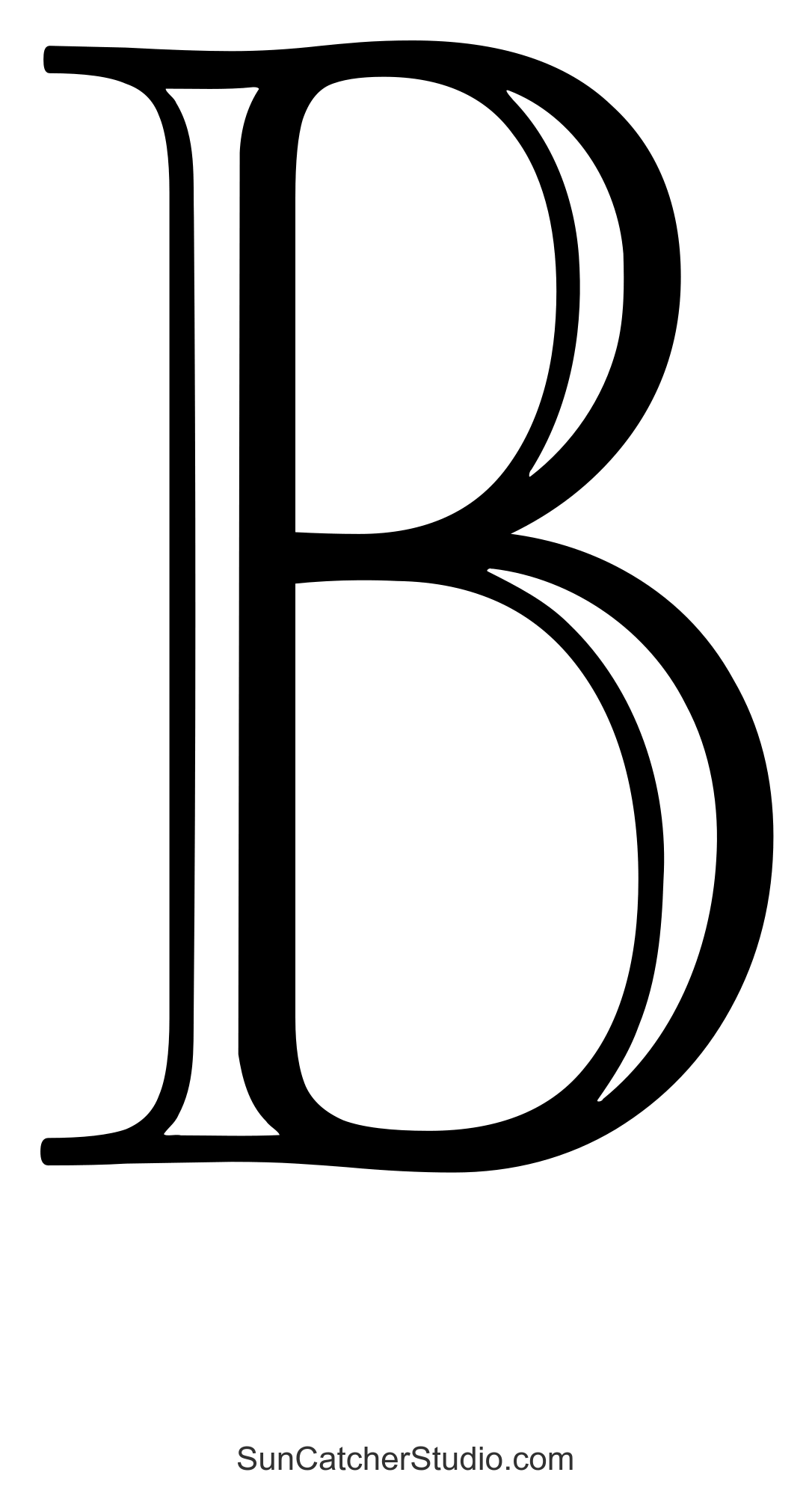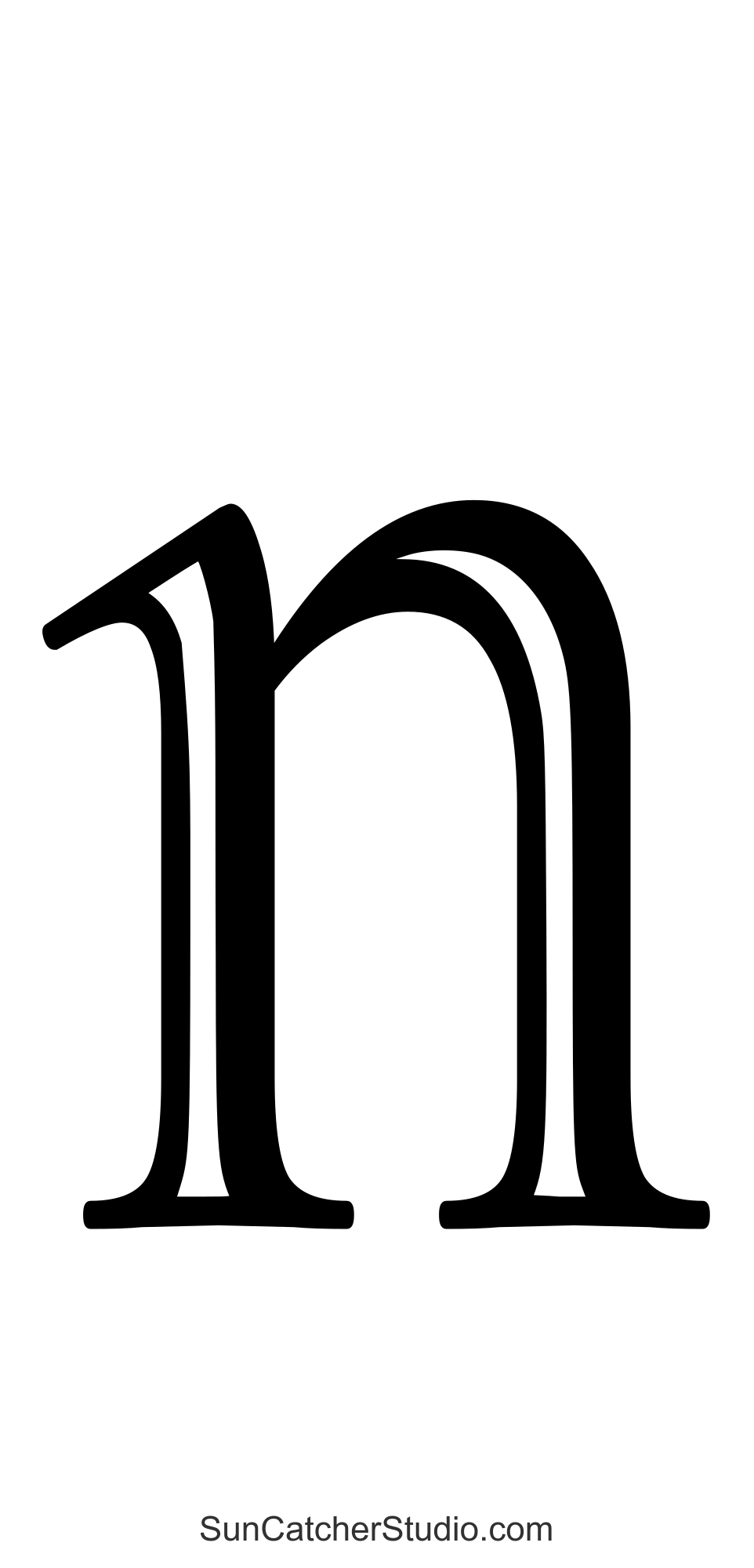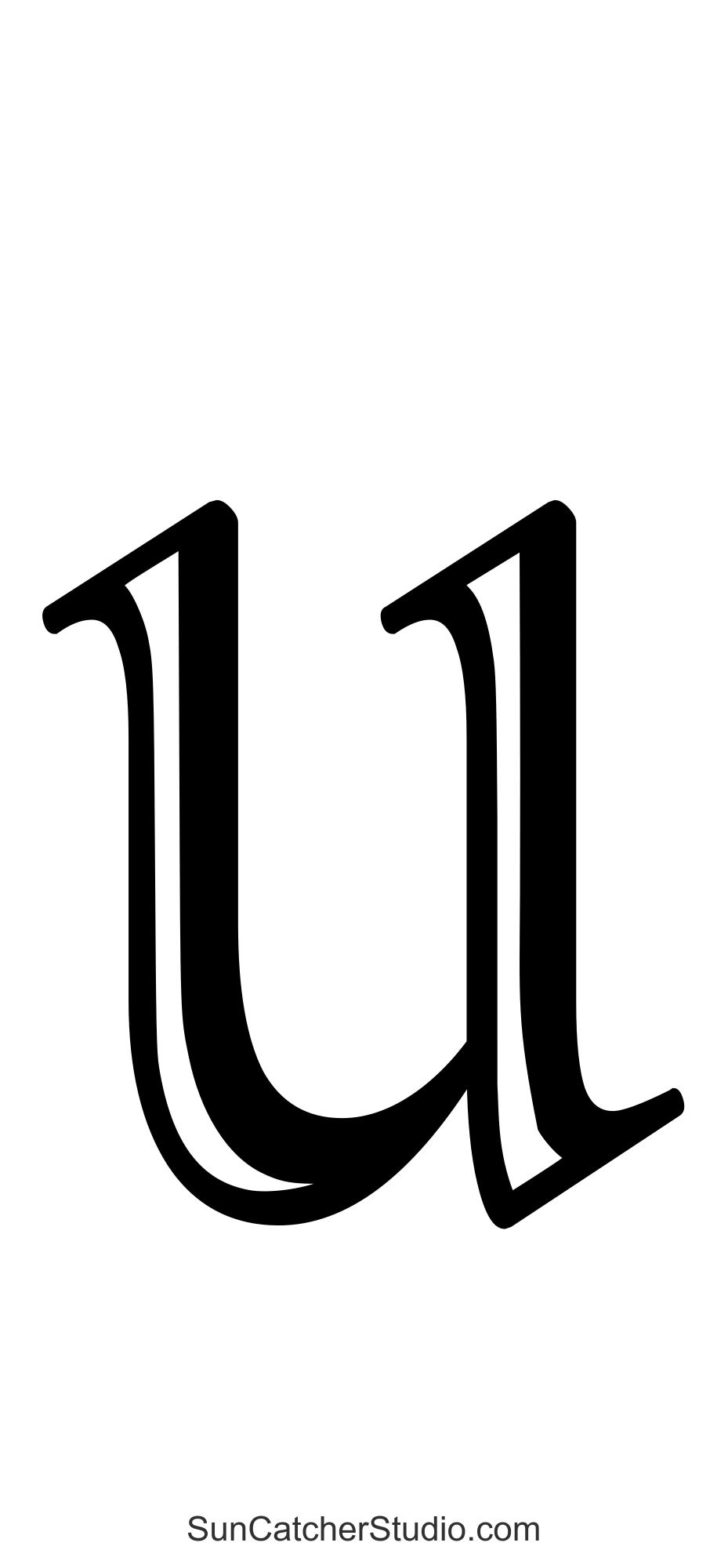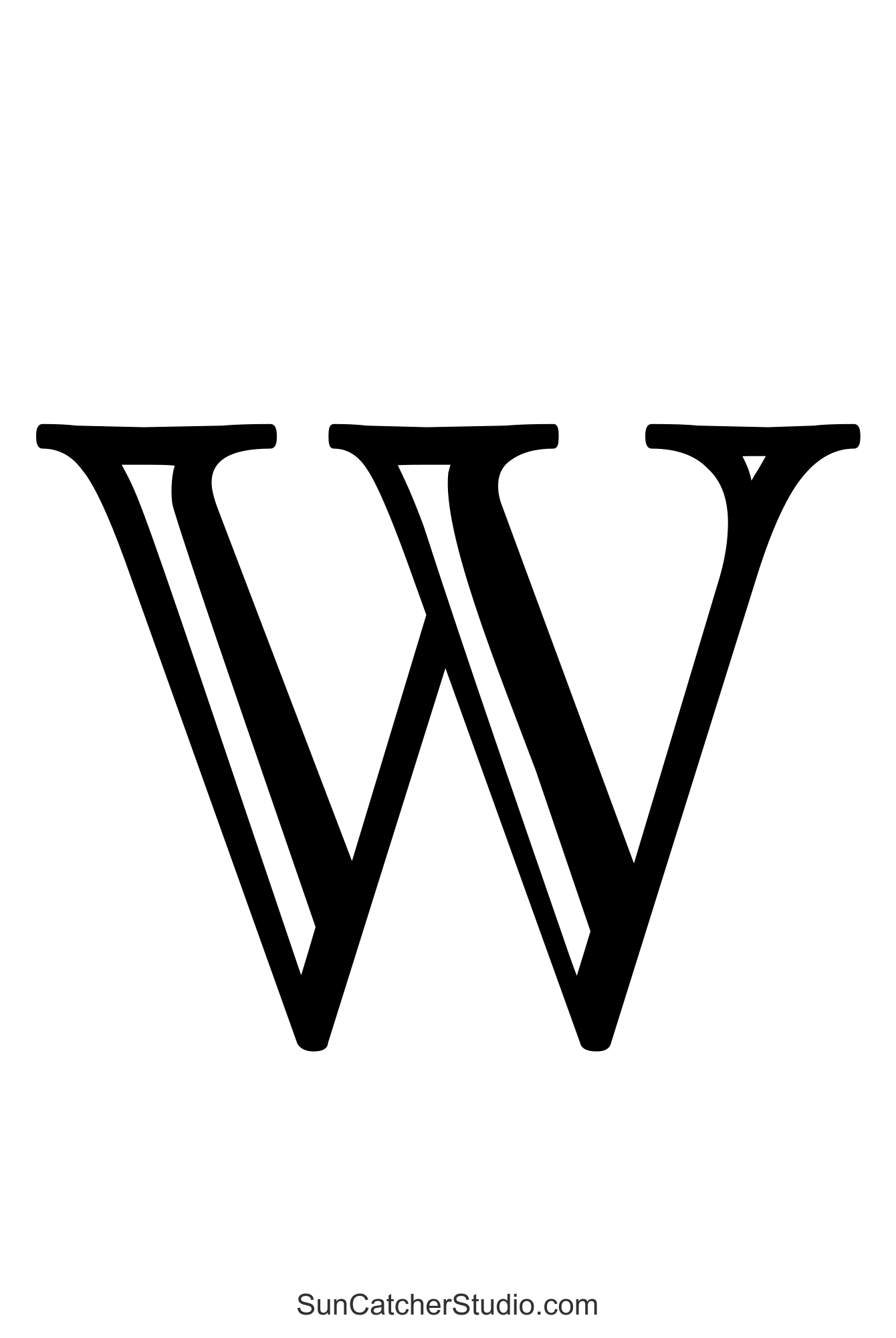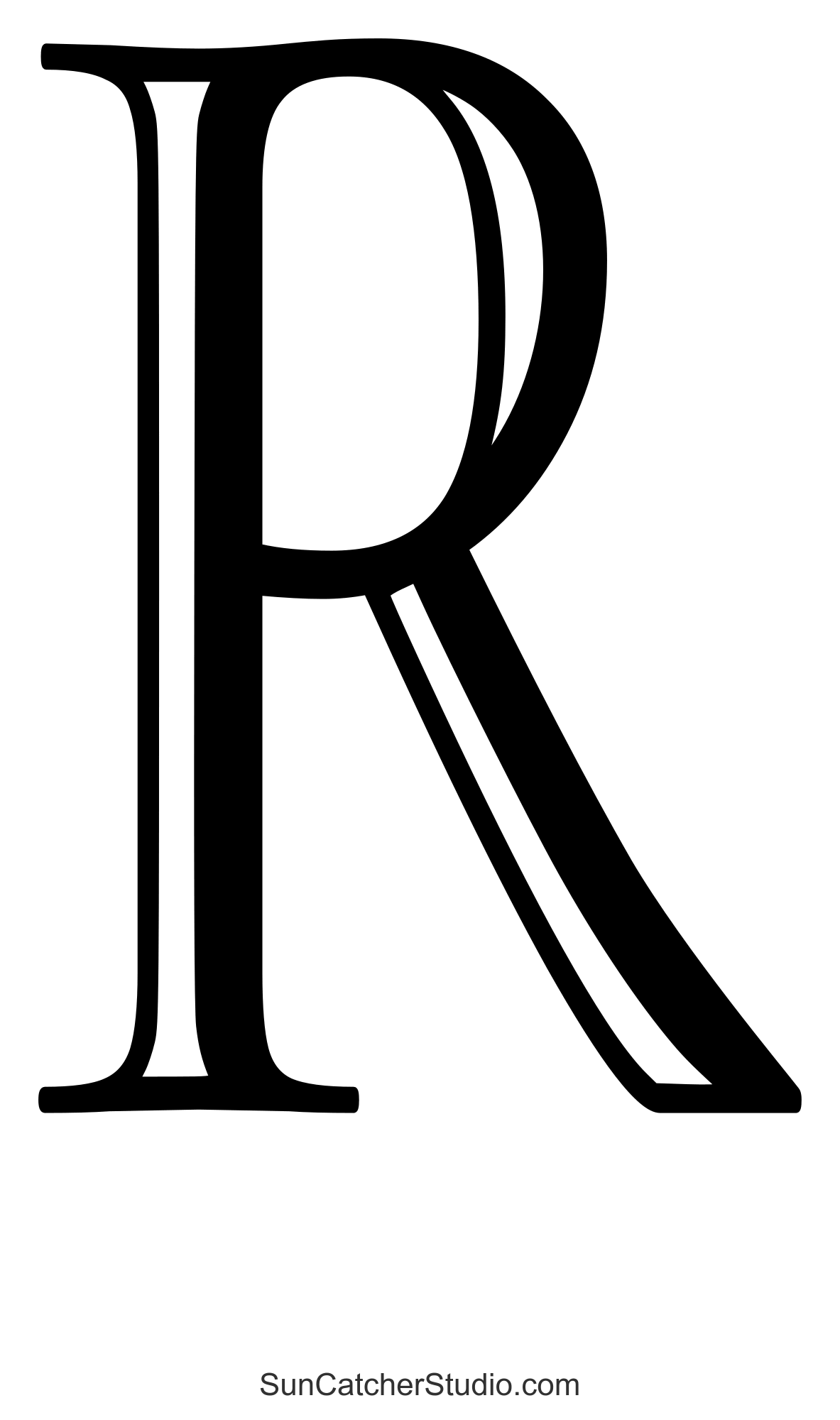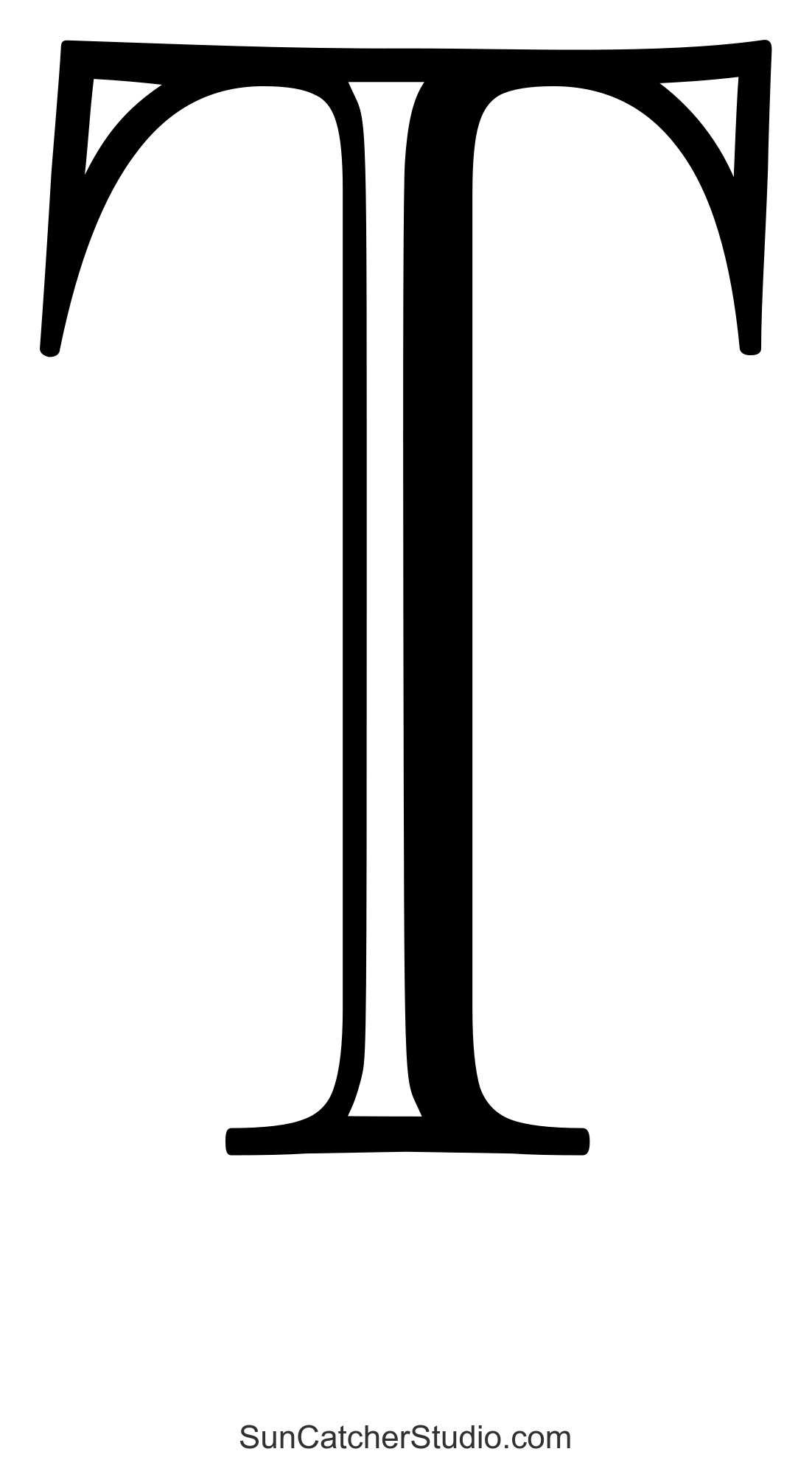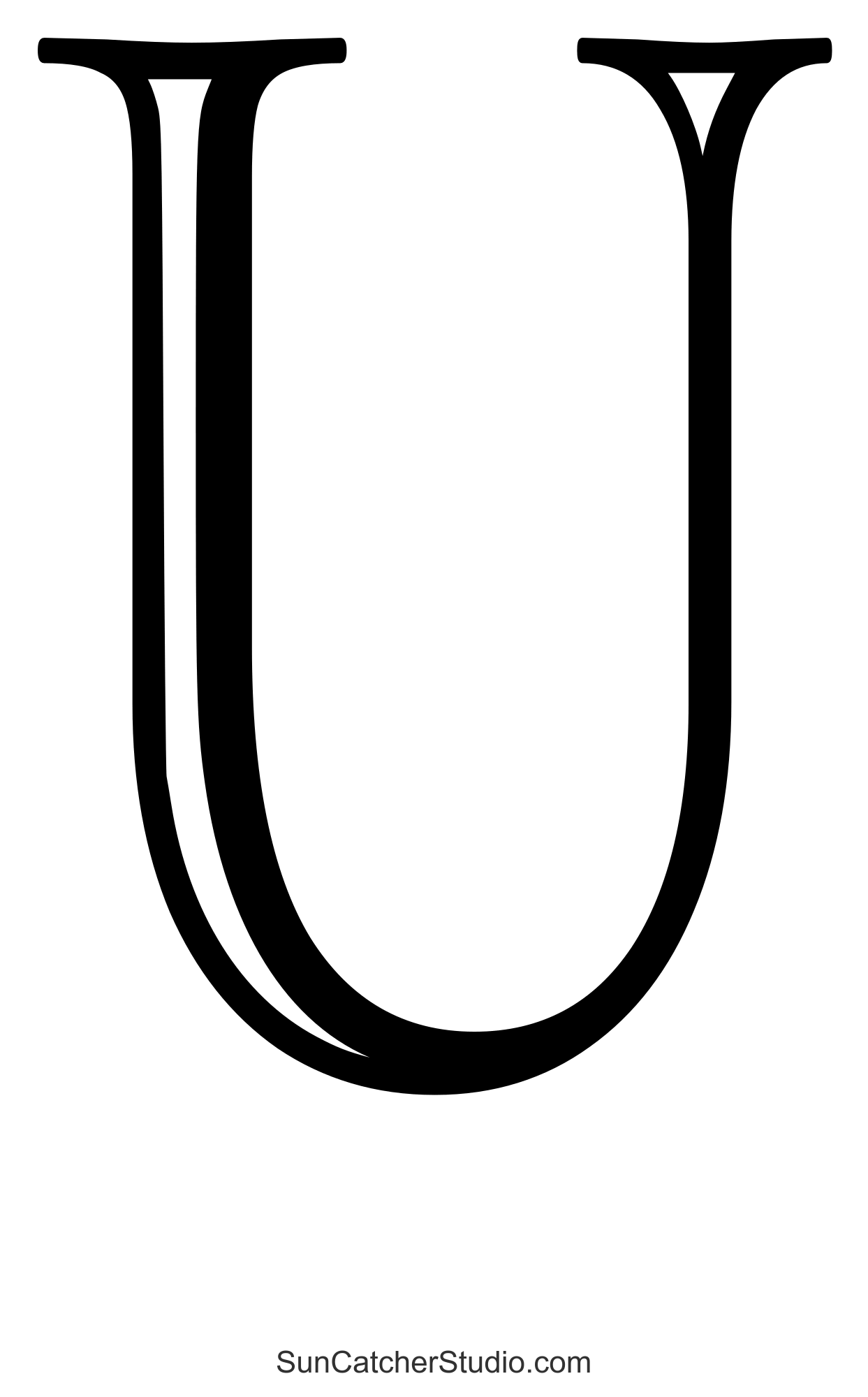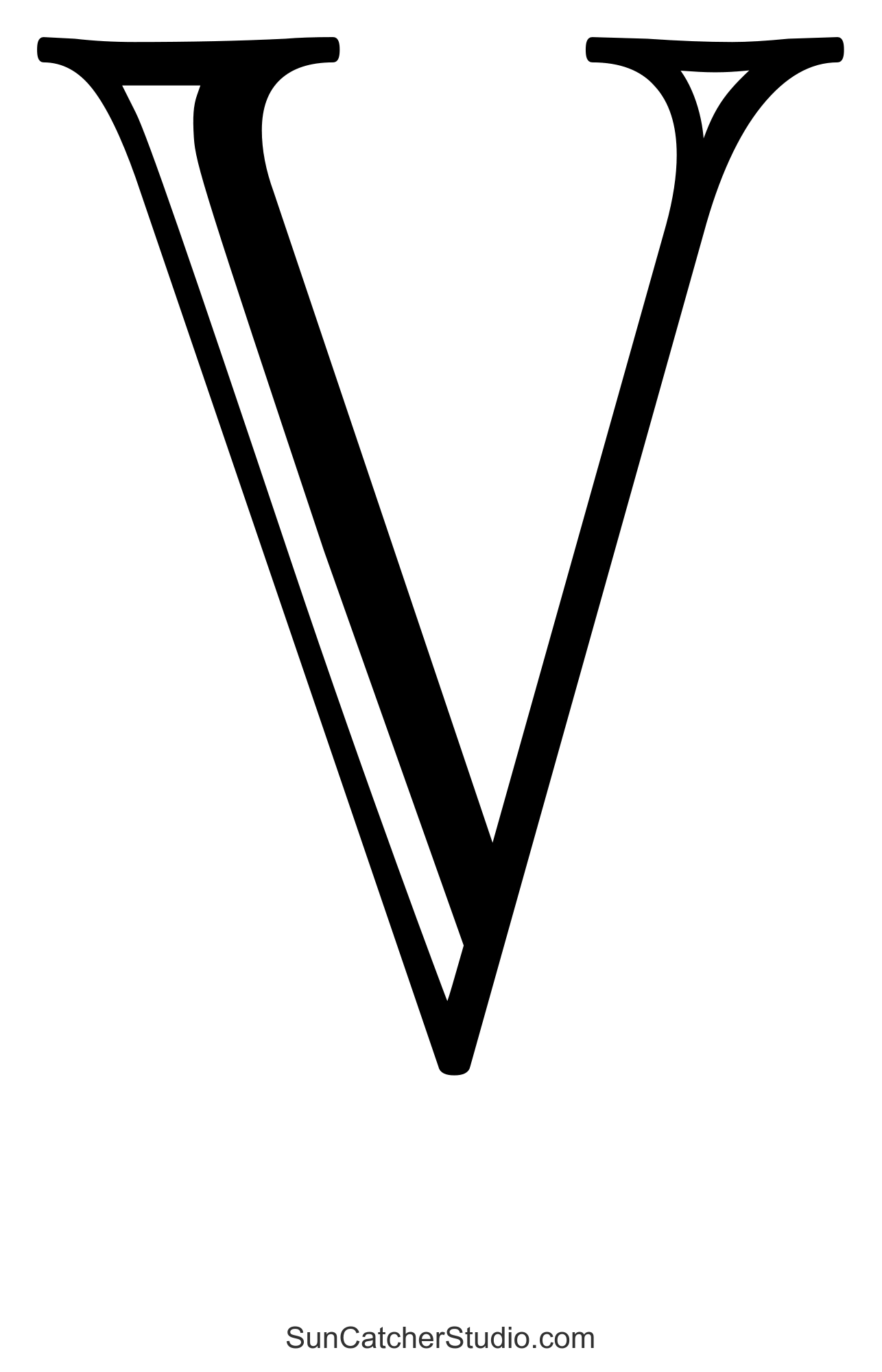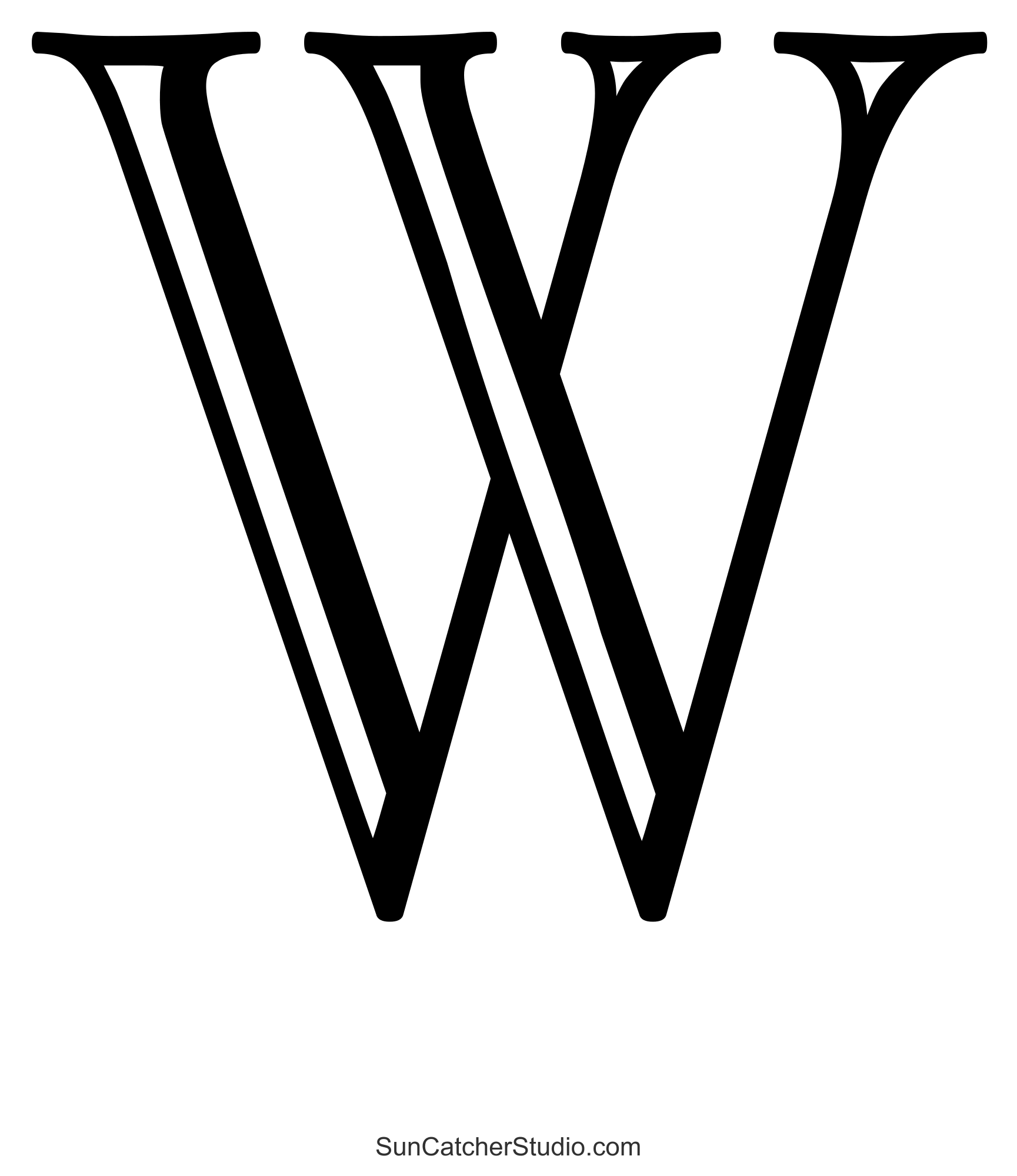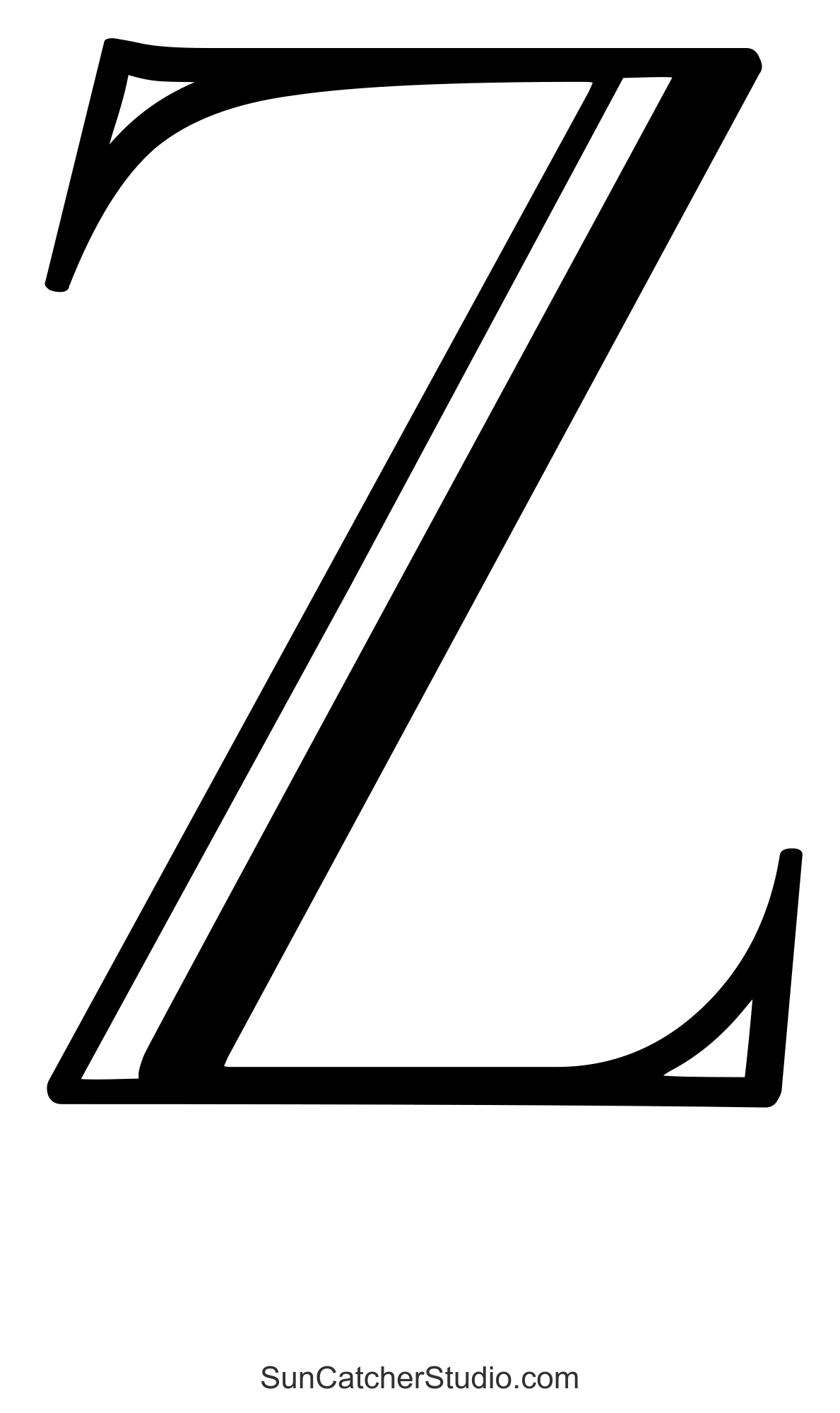
Engraved Serif Font (Elegant Display Typeface Lettering)
Free elegant engraved serif font, stencils, patterns, numbers, clip art, and alphabet font. PERSONALIZE with your own color! Great for bulletin boards, decorations, welcome signs, etc. For more ideas see cool fonts and monogram maker and fancy text generator.
Engraved Serif Font (Printable Uppercase Letters & Stencils)
Engraved Serif Font (Printable Lowercase Letters & Stencils)